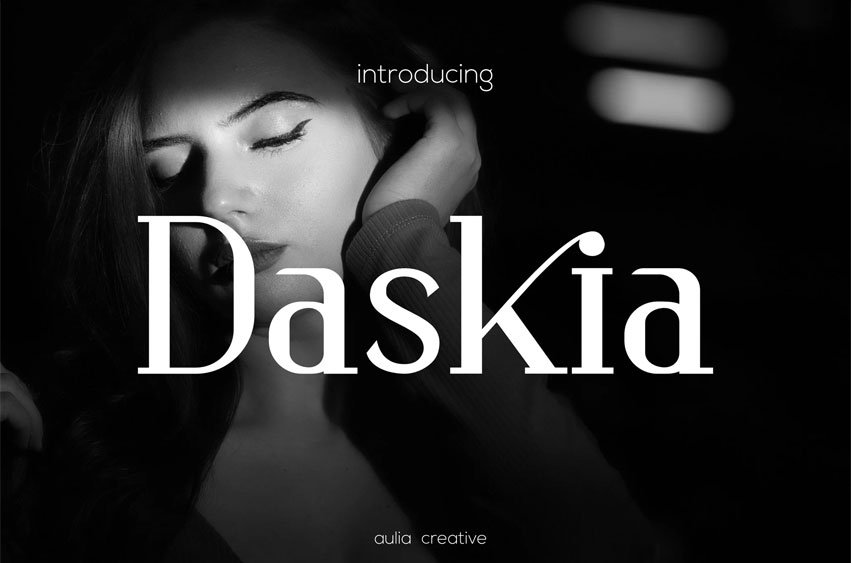
Daskia Font
Daskia Font serif Display Font is and awesome and authentic display font.
It fits in headlines, logos, posters, flyers, invitations, name cards, branding materials, print media, editorial layouts, and many more.